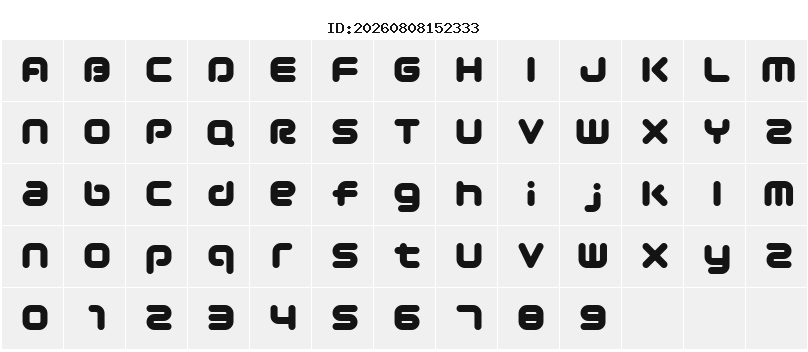
About PocoUltra.ttf
PocoUltra.ttf is a modern, elegant sans-serif font designed for ultimate readability and visual harmony. Perfect for branding, headlines, web design, and print materials.